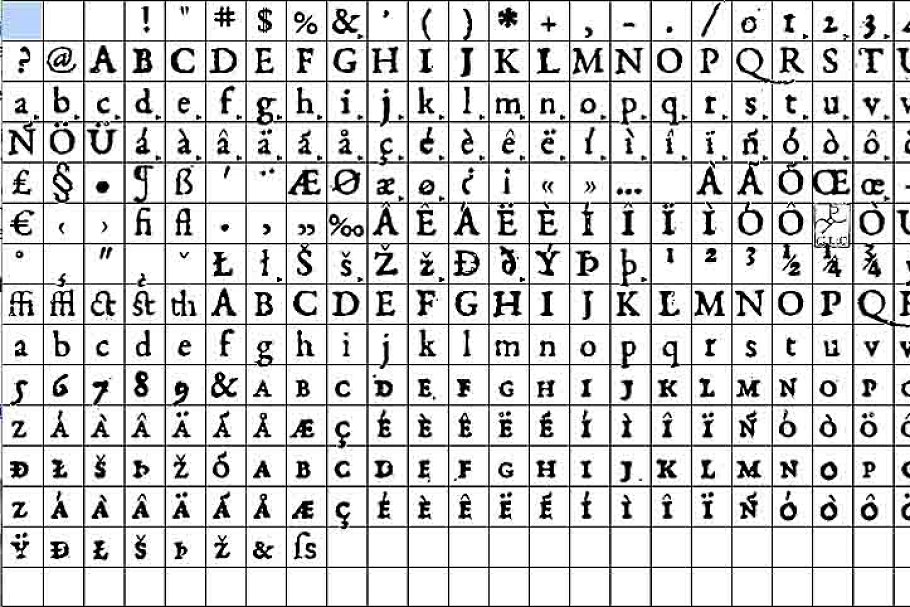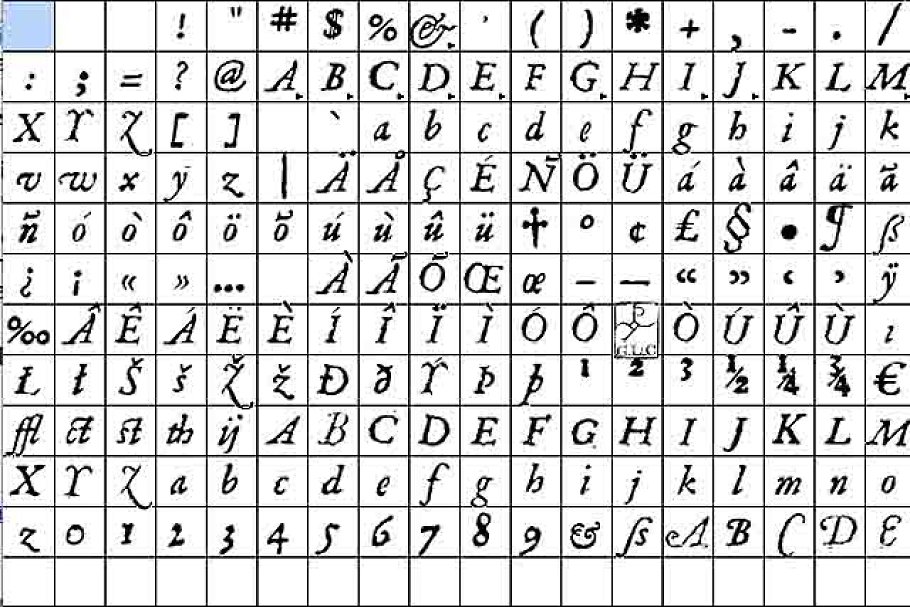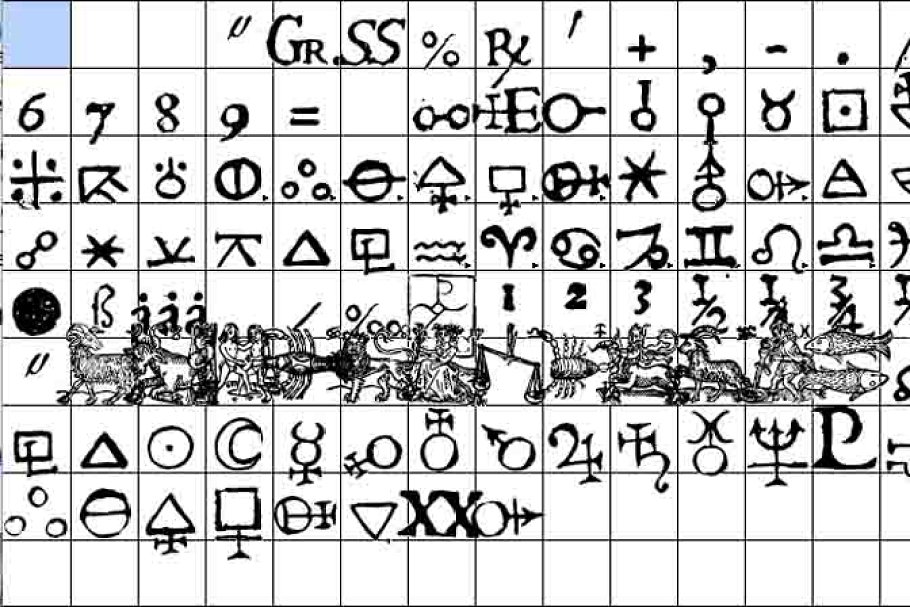
About the Alchemy Family OTF Font
This family is a compilation created from a Garamond set in use in Paris circa 1651, but similar to those, eroded and tired, that were in use during centuries to print cheap publications, as well as in Europe than in America, and from a large choice of printed symbols—all specially redrawn—used for alchemical, pharmaceutical and astrological books, covering 1550 to late 1800s period
Each alphabet is doubled by a slightly different one, and a special OTF encoding allows to give an irregular effect with never the same twin letters in a single word, The Normal style is enriched by small caps, and the Italic style by Swashes, A lot of symbols, too, are given twice with differences